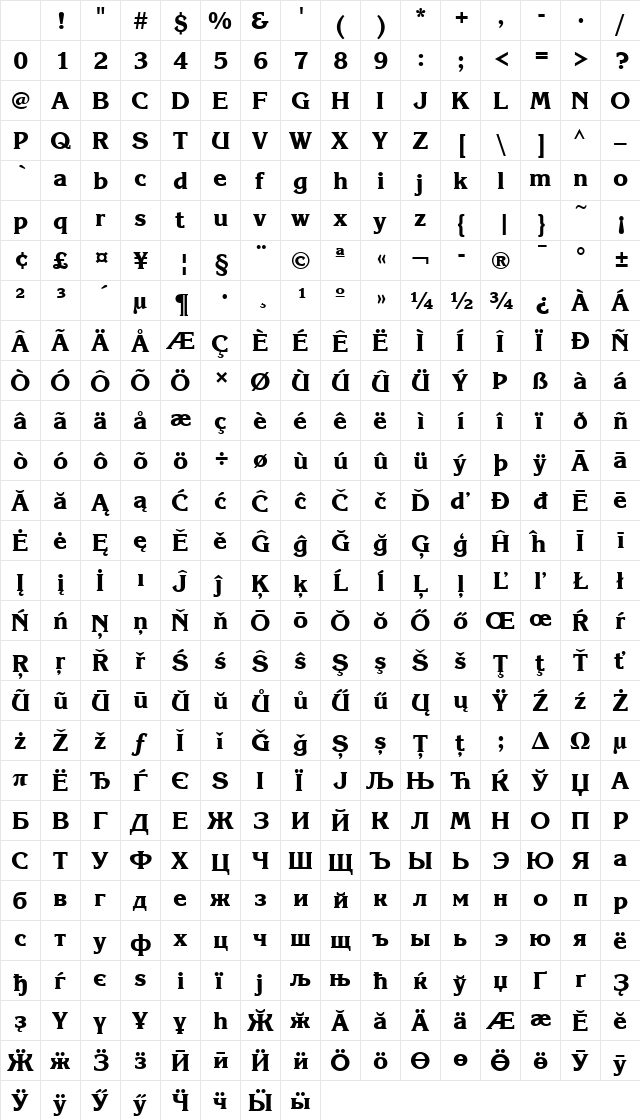
Complete KorinnaExtraBoldITCW05-Rg Regular glyph index. Displaying only characters natively supported by KorinnaExtraBoldITCW05-Rg Regular font.
KorinnaExtraBoldITCW05-Rg is a composed and adaptable typeface that performs quietly and consistently across a wide range of design contexts. Its bold stroke weight gives it real presence on the page.